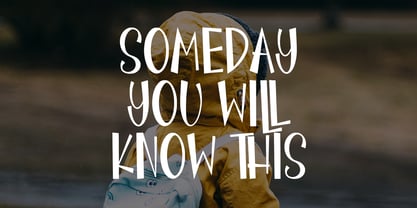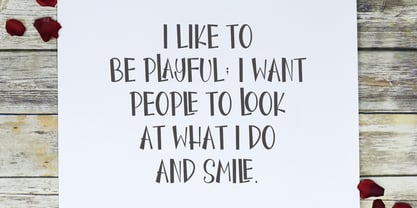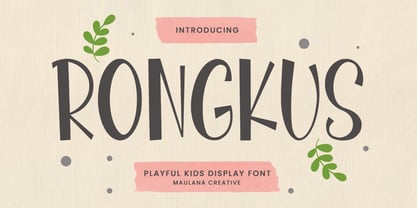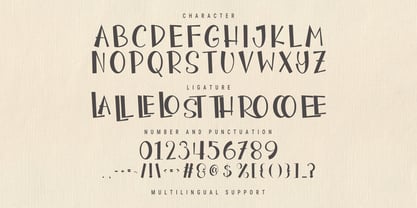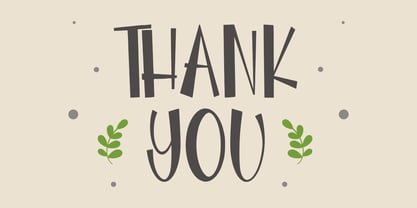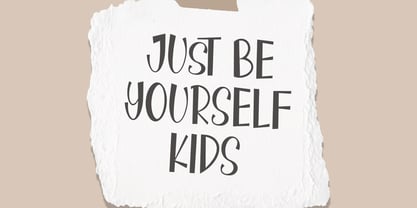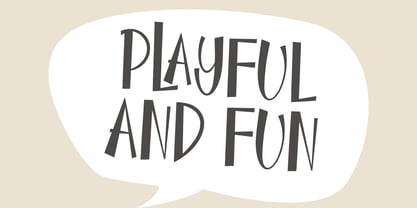
MC Rongkus
by Maulana Creative
The MC Rongkus Font Family was designed by Gilang Maulana and published by Maulana Creative. MC Rongkus contains 1 styles. More about this family
Rongkus is a playful kids display handwritten font. With bold stroke, fun character with a bit of ligatures. To give you an extra creative work. Rongkus font support multilingual more than 100+ language. This font is good for logo design, Social media, Movie Titles, Books Titles, a short text even a long text letter and good for your secondary text font with sans or serif. Make a stunning work with Rongkus font.